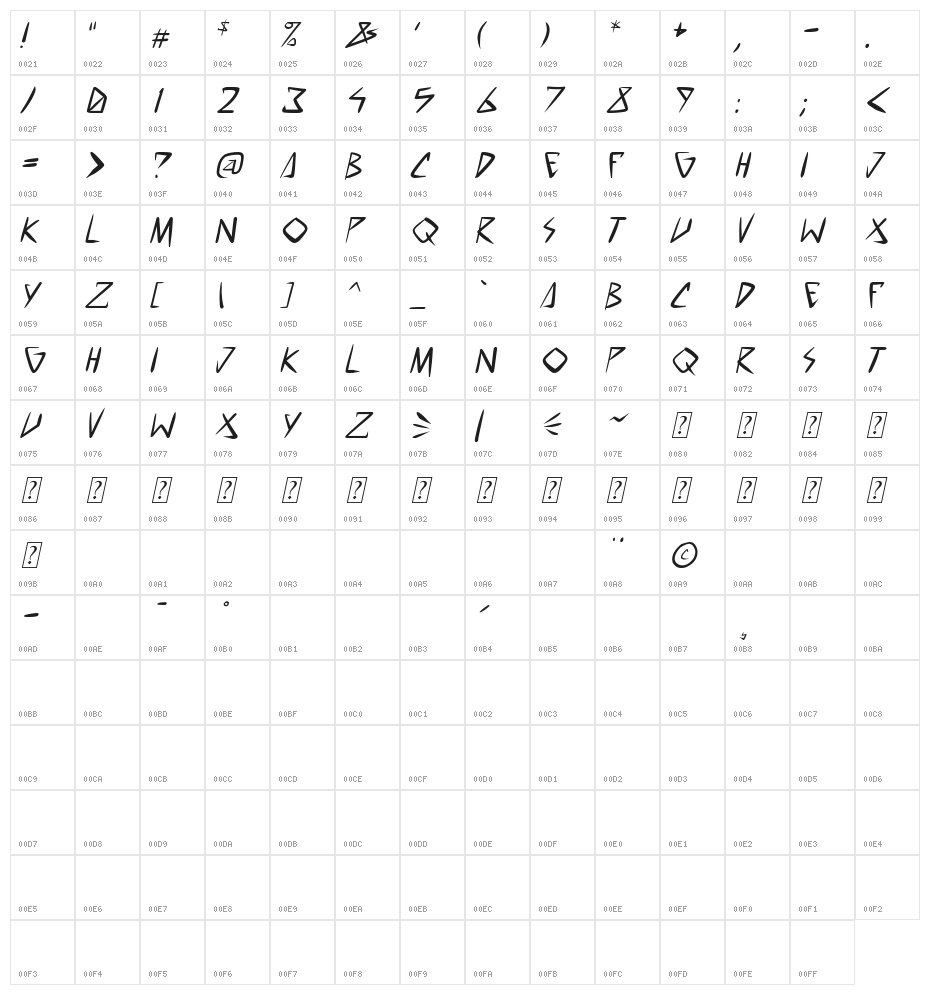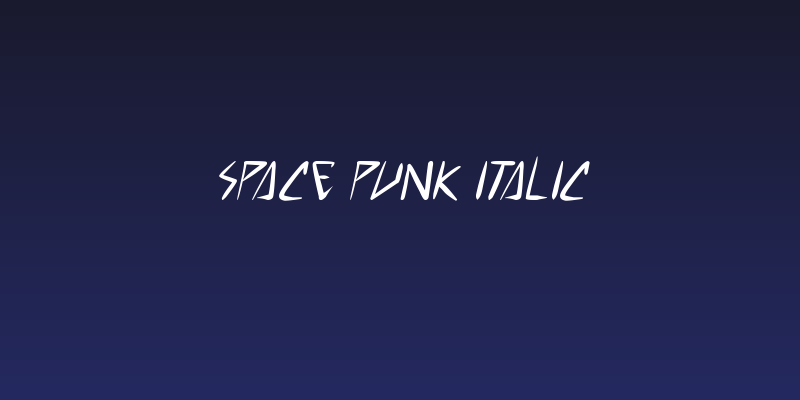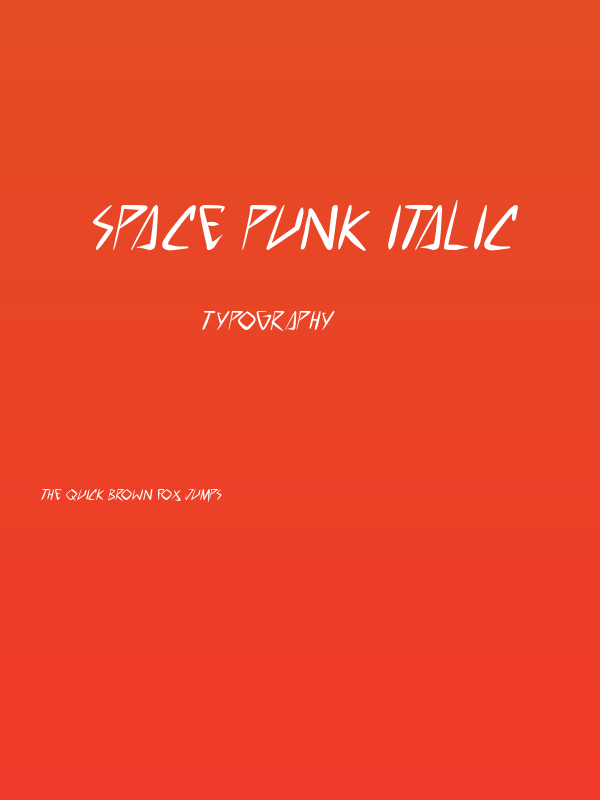
space punk Italic Font
This font features a dynamic and edgy design with sharp, angular lines and a futuristic aesthetic. The characters are italicized, giving them a sense of motion and energy. The uppercase and lowercase letters maintain a consistent style, with exaggerated curves and pointed edges that create a bold and striking appearance. The numerals and special characters follow the same design principles, ensuring a cohesive look across all elements. The font's unique style makes it ideal for projects that require a modern and unconventional touch.